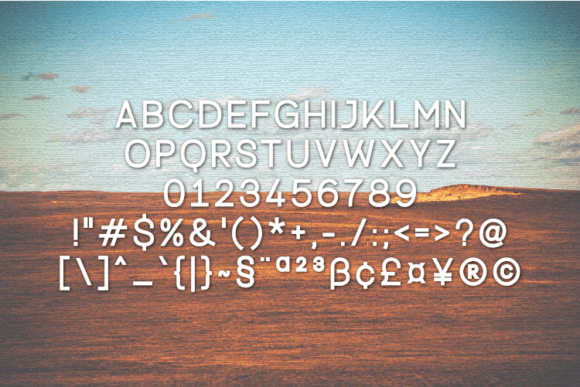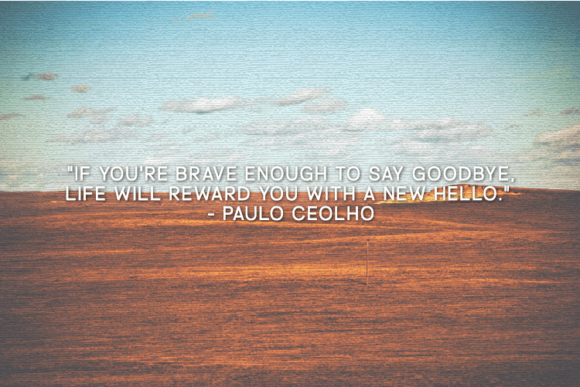
Feelings Comeback Font – Free Download
Introduction to Feelings Comeback Font
Feelings Comeback is a stunning sans serif font to complement every project you’re working on.
Use it to create beautiful headings, gorgeous invitations, stunning logos, and so much more .
Key Features of Feelings Comeback Font
Why Choose Feelings Comeback Font?
Feelings Comeback Font offers exceptional quality and versatility, making it a valuable addition to your design toolkit. Whether you’re creating for personal projects or commercial use, Feelings Comeback Font delivers professional results.